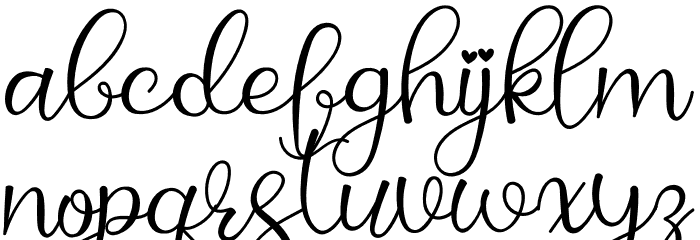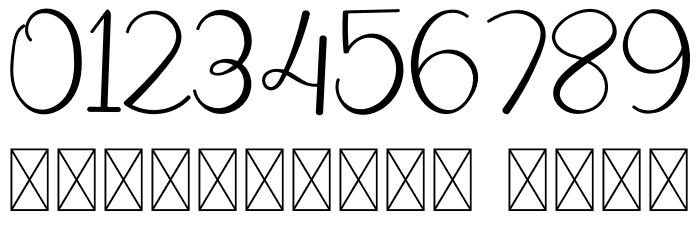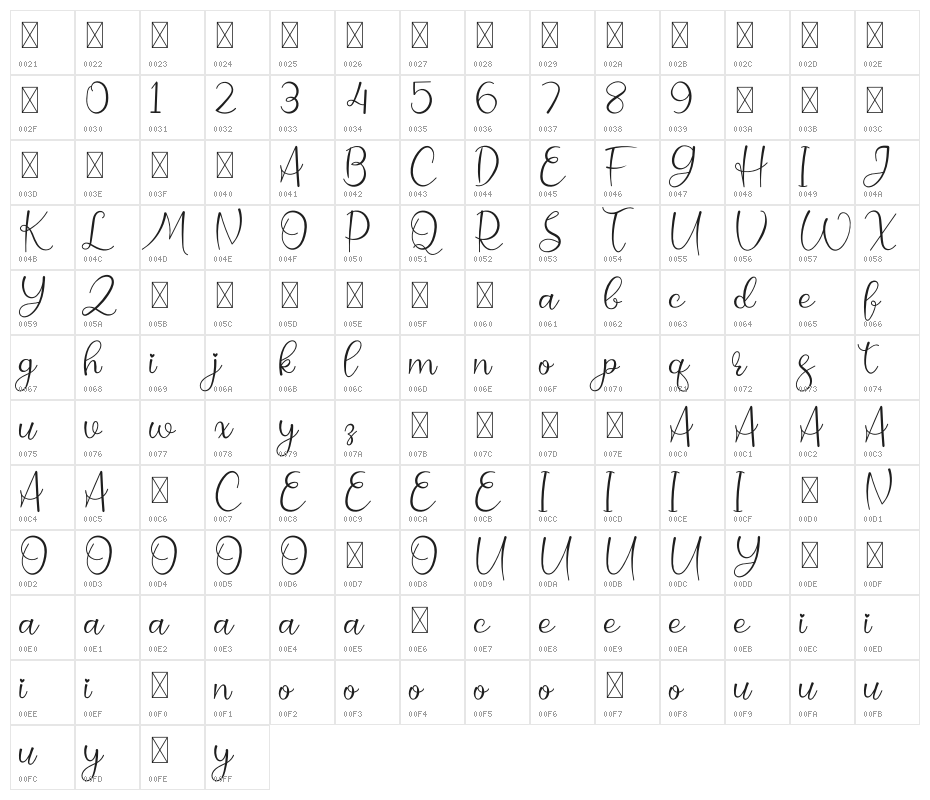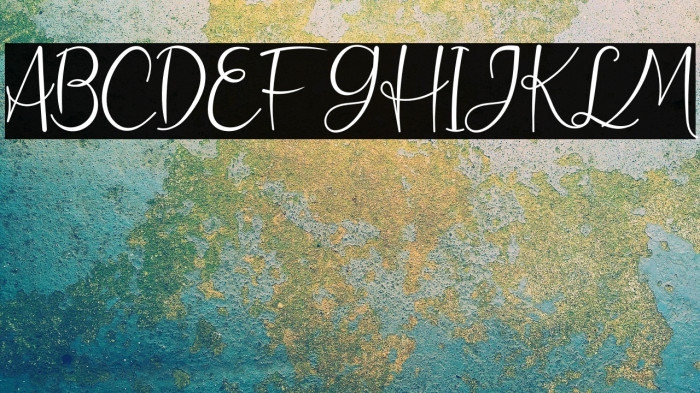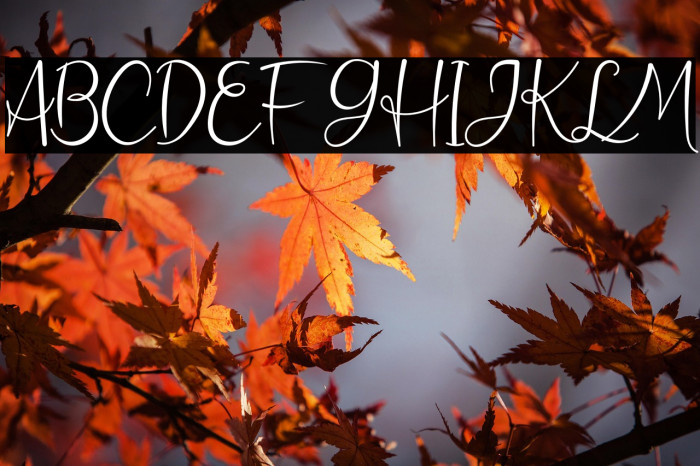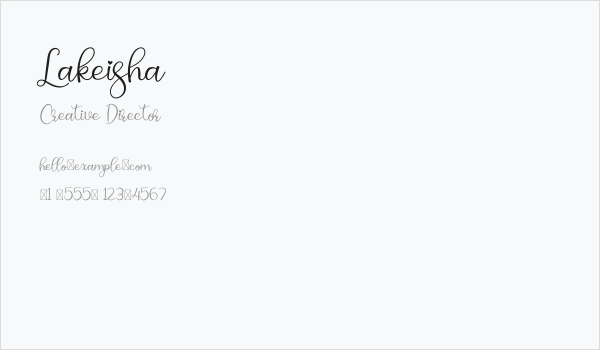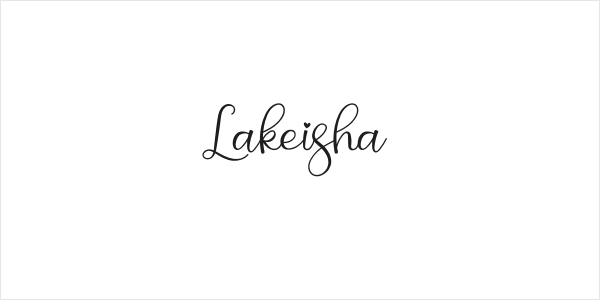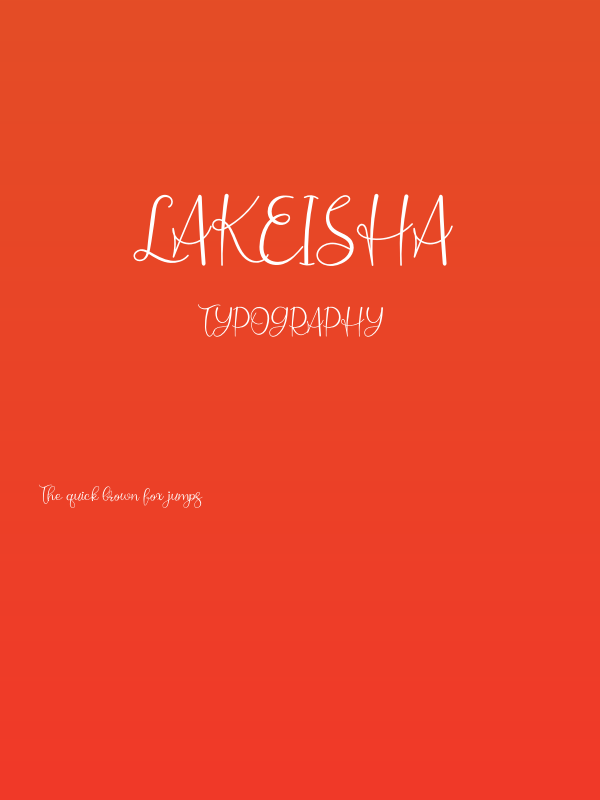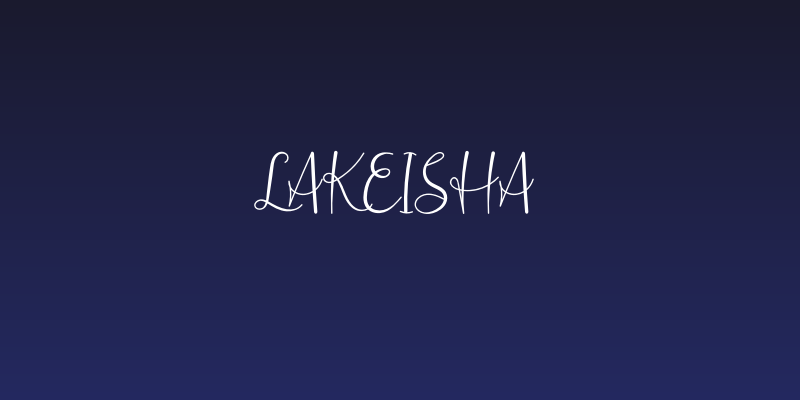
Lakeisha Font
This font features a playful and elegant script style, characterized by its flowing and interconnected letterforms. The uppercase letters are tall and slender, with a slight slant that adds a dynamic feel. The lowercase letters are more rounded and feature distinctive loops and curves, giving the font a whimsical and friendly appearance. The numerals are consistent with the overall style, maintaining the same fluidity and elegance. The special characters are designed to complement the alphabet, ensuring a cohesive look across all text. This font is perfect for projects that require a touch of sophistication and charm.
A playful and elegant script font with flowing, interconnected letterforms.
- Font: Lakeisha
- Proposed Projects: Ideal for wedding invitations, greeting cards, branding, and social media graphics.
- Category: Script
- Overall Style: Elegant, Whimsical
- Use Case: Logos, Invitations, Decorative text